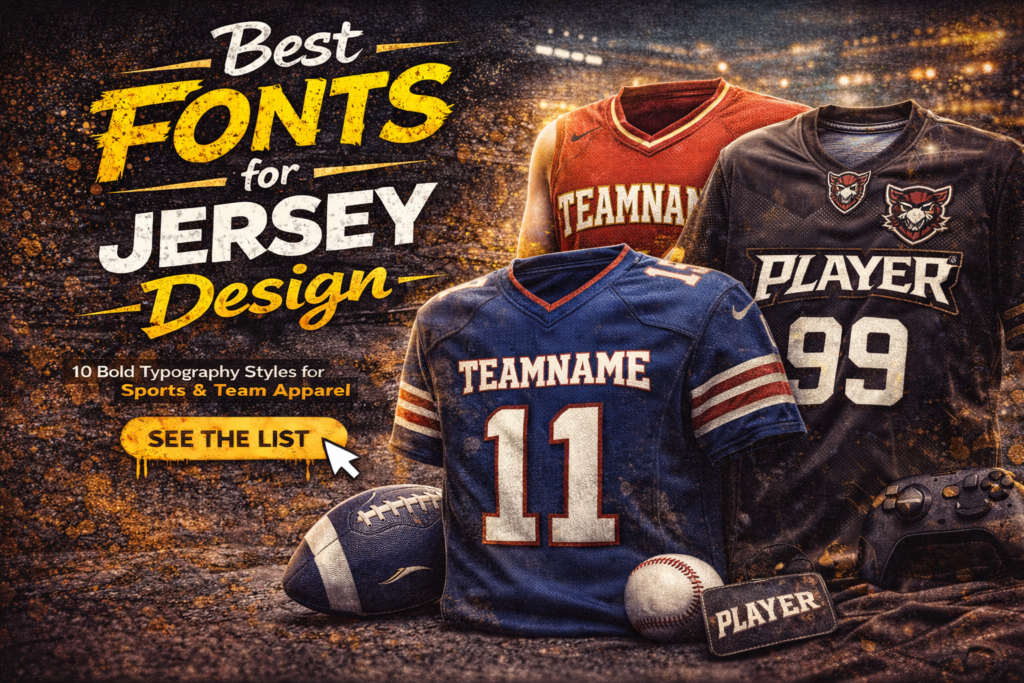
Choosing the best fonts for jersey design is essential for creating strong and professional team apparel. Jerseys are not just uniforms — they represent identity, pride, and team recognition.
Typography plays a huge role in making the design look athletic, premium, and easy to read from a distance.
In this guide, we’ll explore the best typography styles for jersey design and team branding.
Why Typography Matters for Jersey Design
Jerseys need strong readability.
Typography affects:
• team recognition
• number visibility
• player name clarity
• premium look
A strong font can make the jersey look much more professional.
10 Best Fonts for Jersey Design
1. Varsity Fonts
Perfect for:
• basketball jerseys
• baseball uniforms
• school teams
Classic athletic look.
2. Bold Sans Serif Fonts
Modern and clean.
Perfect for esports and modern sportswear.
3. Athletic Block Fonts
Best for:
• football jerseys
• futsal kits
• custom team wear
Highly readable from distance.
4. Gothic Sports Fonts
Excellent for edgy and premium team branding.
5. Modern Display Fonts
Great for esports and gaming jerseys.
6. Minimal Sports Fonts
Perfect for premium athletic brands.
7. Distressed Athletic Fonts
Ideal for vintage sports aesthetics.
8. Brush Fonts
Great for casual sportswear merch.
9. Custom Number Fonts
Highly recommended for player names and numbers.
10. Custom Team Lettering Fonts
Best for unique team identity.
How to Choose the Best Fonts for Jersey Design
Choose based on:
Sport Type
Football → athletic block
Basketball → varsity
Esports → display / modern
Readability
Must remain clear on:
• front chest
• back name
• player numbers
Print Compatibility
Works for:
• sublimation
• heat press
• embroidery
Final Thoughts
Choosing the best fonts for jersey design is crucial for professional team branding.
Typography helps improve visibility, premium perception, and brand identity.
Using professional fonts can help sportswear products stand out.